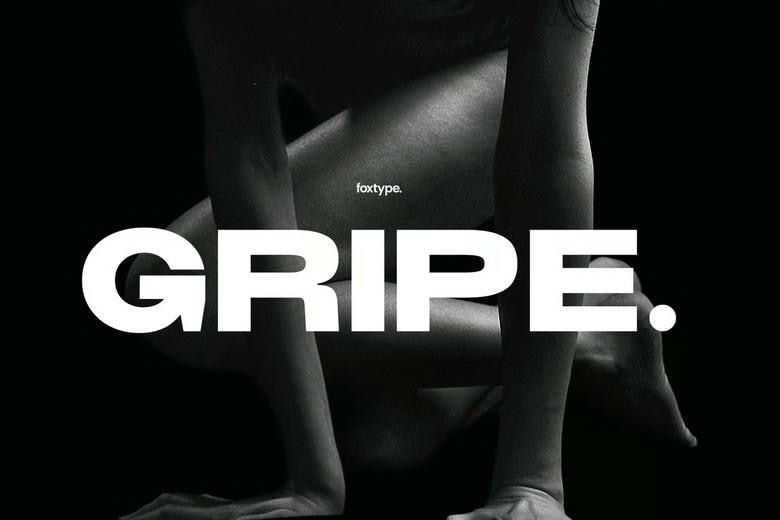
Gripe Font
Gripe Font is a bold, modern display typeface made to grab attention. Its geometric shapes and balanced proportions help it stand out in branding, editorial layouts, and large-scale designs.
Gripe is carefully made and checked for consistency. It combines a sharp look with unique details, so it works well for many uses and always makes a strong impression. Use it for posters, headlines, or brand identities when you want your message to stand out.
Gripe Sans Serif Font